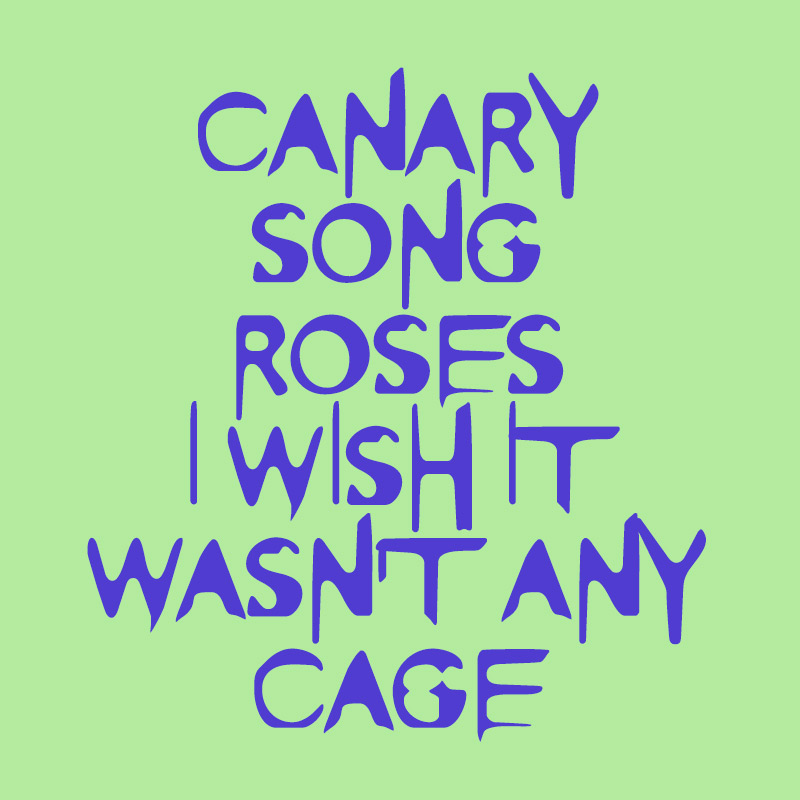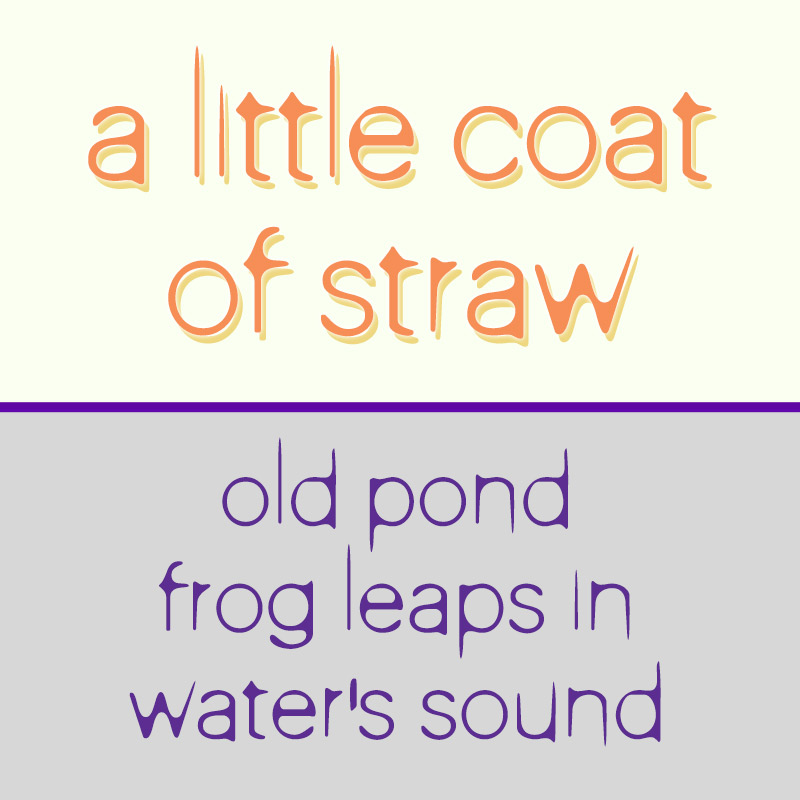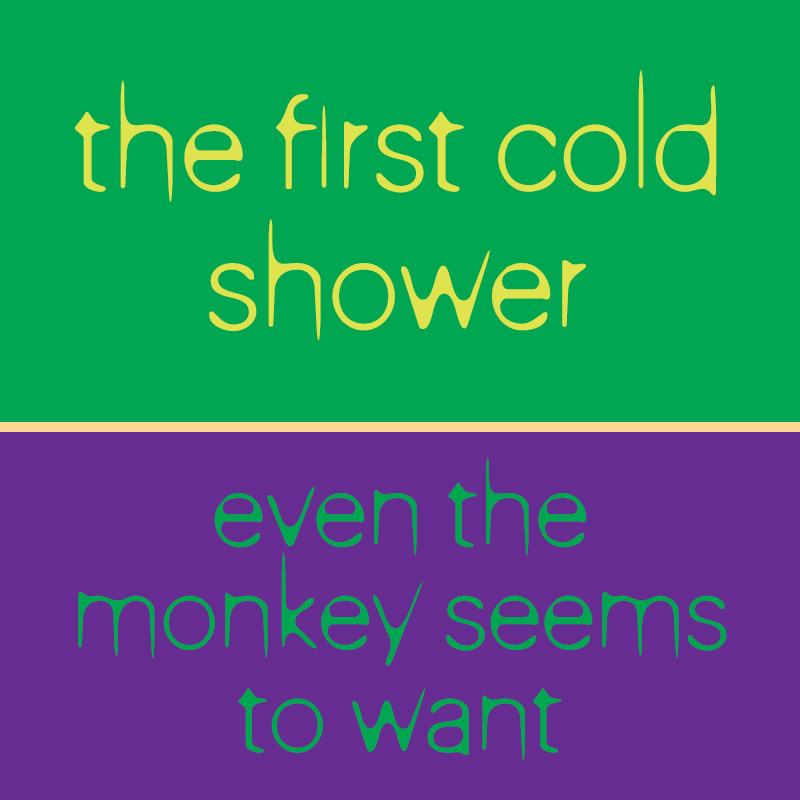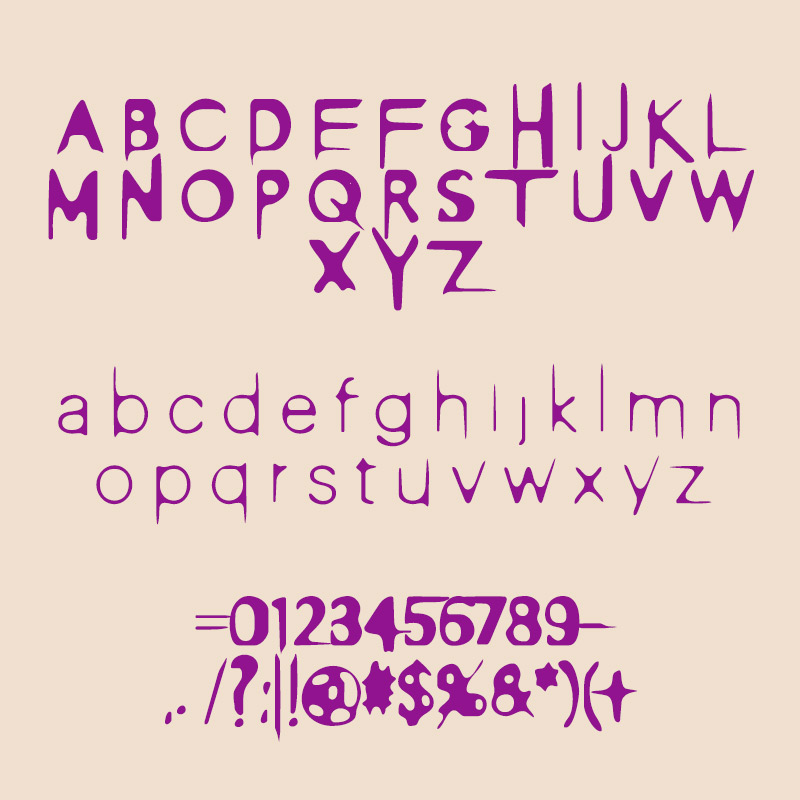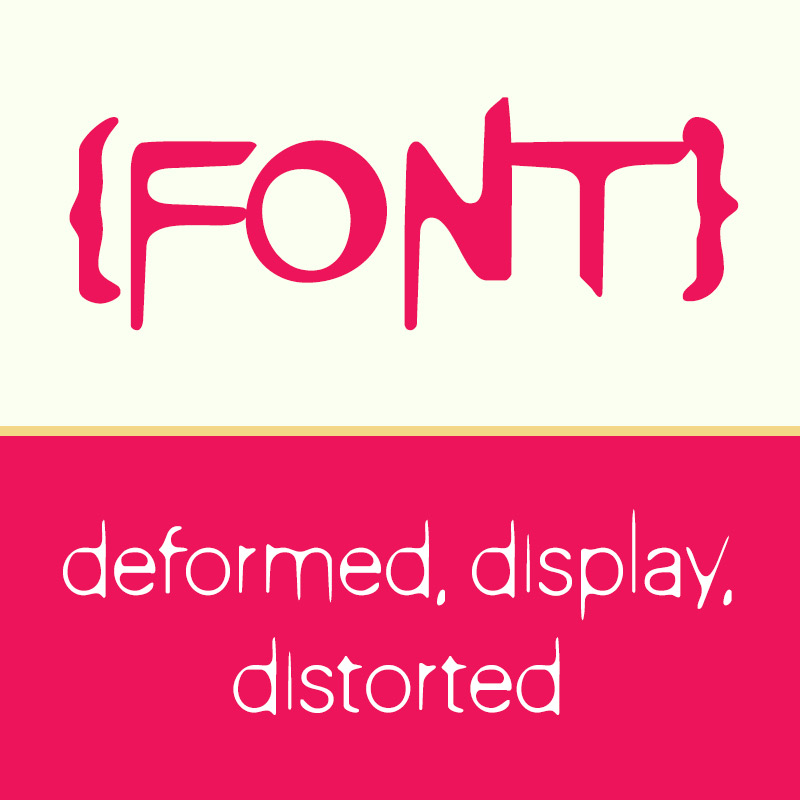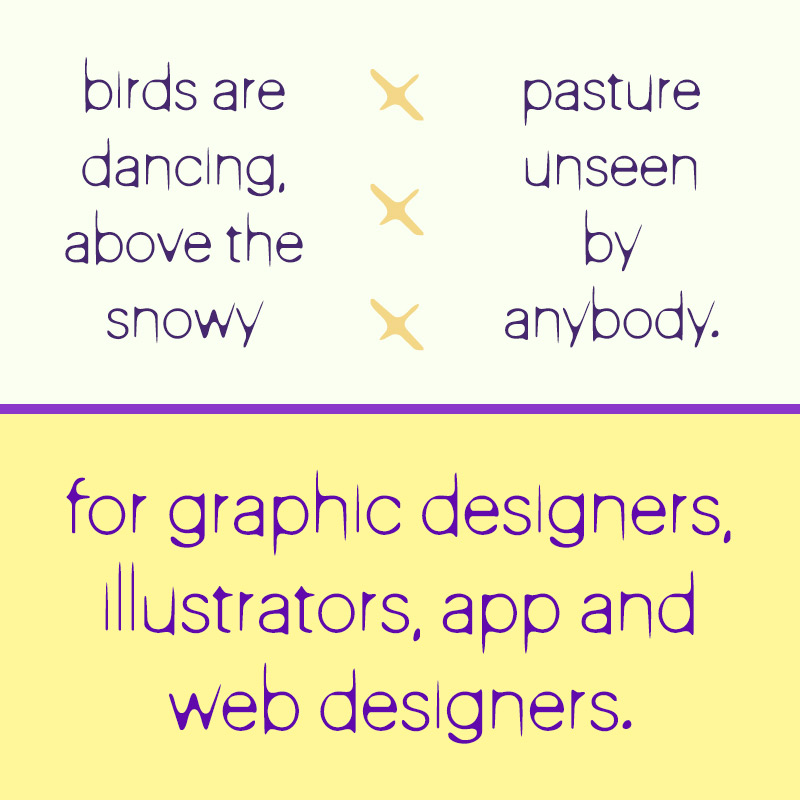
The Quest for the Perfect Font: Discovering Barbad
I’ll never forget the time I was working on a project for a client who wanted a friendly, yet elegant design. I had spent hours scouring the internet for the perfect font, but nothing seemed quite right. That was until I stumbled upon Barbad, a beautiful decorative font that caught my eye. With its unique approach of heavy uppercase and thin lowercase characters, I knew I had found the one.
A First Impression: What I Love About Barbad
So, what makes Barbad so special? Here are a few things that I absolutely love:
- ✨ Unique contrast: The combination of heavy uppercase and thin lowercase characters creates a visually appealing contrast that’s perfect for making a statement.
- ✅ Versatility: Barbad is suitable for a wide range of designs, from friendly and playful to elegant and sophisticated.
- 💡 Instant recognition: The distinctive look of Barbad makes it easy to recognize and remember, which is perfect for branding and advertising.
An Honest Review: The Not-Perfect-but-Almost Section
While Barbad is an amazing font, it’s not without its quirks. Here are a few things to keep in mind:
- 🤔 Legibility at small sizes: Due to the thin lowercase characters, Barbad can be a bit tricky to read at very small sizes. Make sure to test it out before committing to a specific font size.
- ⚠️ Limited use in body text: While Barbad is perfect for headlines and titles, it’s not the best choice for body text. The contrast between uppercase and lowercase characters can make it difficult to read in large blocks of text.
Alternatives to Barbad: Exploring Similar Fonts
If you love Barbad but want to explore other options, here are a few similar fonts you might enjoy:
- Playfair Display: A elegant and refined font with a similar contrast to Barbad, perfect for luxury brands and high-end designs.
- Raleway: A modern and sleek font with a similar feel to Barbad, great for designs that need a bit of sophistication.
- Great Vibes: A fun and playful font with a similar energy to Barbad, perfect for designs that need a bit of whimsy.
- Alex Brush: A beautiful script font with a similar elegance to Barbad, great for designs that need a touch of personality.
The Story Behind Barbad: Designer Inspiration
While the true story behind Barbad’s creation is unknown, it’s easy to imagine that the designer was inspired by the contrast between bold and delicate elements. Perhaps they were influenced by the elegant lines of calligraphy or the playful feel of hand-drawn fonts. Whatever the inspiration, Barbad is a true gem in the world of typography.
| Font Name | Barbad Font |
| Author | shahab.siavash |
| What makes Barbad unique? | The combination of heavy uppercase and thin lowercase characters creates a visually appealing contrast that’s perfect for making a statement. |
| Is Barbad suitable for body text? | While Barbad is perfect for headlines and titles, it’s not the best choice for body text. The contrast between uppercase and lowercase characters can make it difficult to read in large blocks of text. |
| Is Barbad available in different weights or styles? | While Barbad is a single font, its unique contrast and OpenType features make it versatile enough to be used in a variety of designs and contexts. |